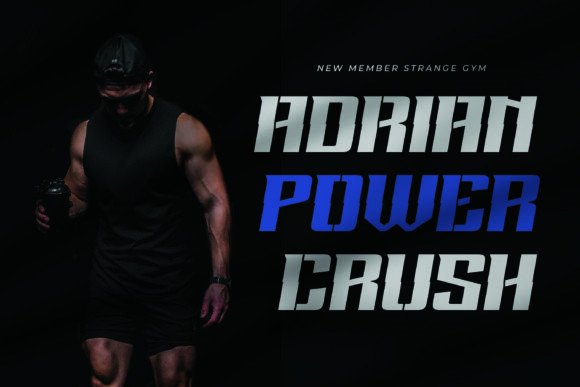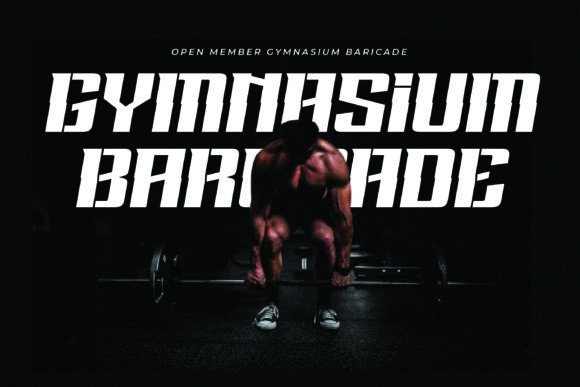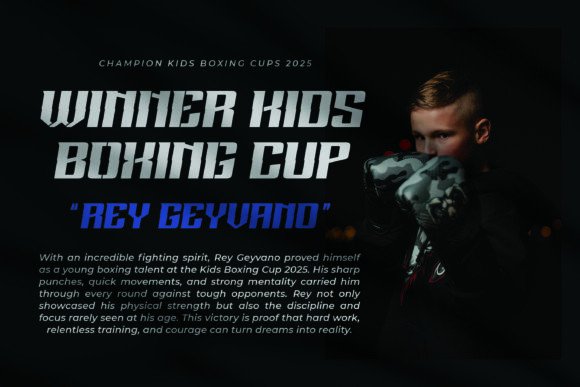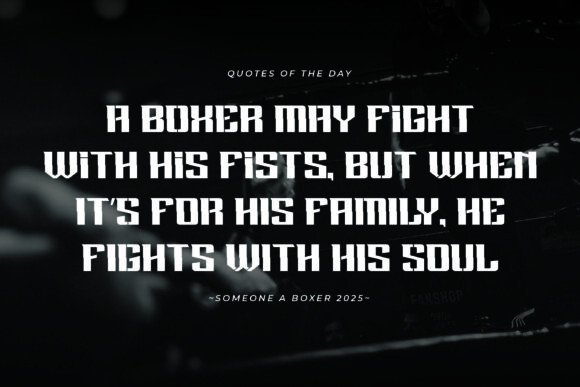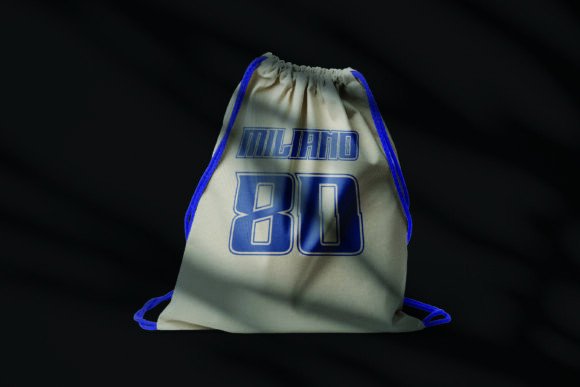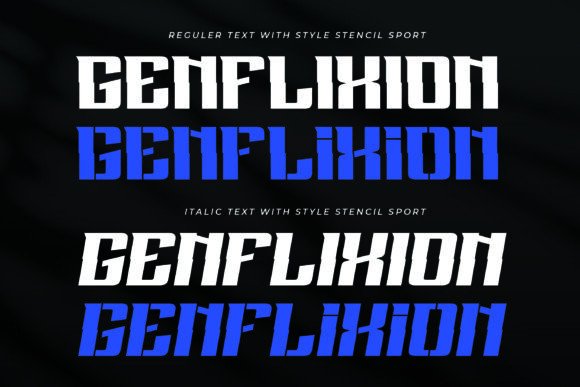
Unleash the Power of Chasers Font: Elevate Your Designs with Strength and Speed
In the world of typography, fonts play a crucial role in conveying the message and tone of a design. For designers and crafters looking to inject energy and dynamism into their work, Chasers Font is an excellent choice. This modern sport gym typeface is built for strength and speed, making it perfect for projects that require a bold and athletic aesthetic.
The Design Behind Chasers Font
Chasers Font boasts a bold, angular cut and a dynamic structure that exudes the intensity of athletic performance. Its unique design elements are carefully crafted to bring a sense of movement and power to your designs. The font’s bold lines and sharp edges create a rugged, high-energy feel that’s perfect for gym branding, sports apparel, posters, and powerful headlines.
Perfect for High-Energy Designs
Chasers Font is specifically designed to thrive in high-energy environments. Its robust and athletic appearance makes it an ideal choice for:
- Gym branding: Create a strong and powerful identity for your gym or fitness studio with Chasers Font.
- Sports apparel: Add a bold and dynamic touch to your sports apparel designs with this high-energy font.
- Posters: Grab attention and convey intensity with Chasers Font, perfect for posters promoting sports events, fitness classes, or athletic competitions.
- Headlines: Make a statement with powerful headlines that demand attention, using Chasers Font’s bold and angular design.
Key Features of Chasers Font
So, what sets Chasers Font apart from other typefaces? Here are some key features that make it an excellent choice for designers and crafters:
- Bold and angular design: Chasers Font’s unique design elements create a strong and dynamic visual impact.
- High-energy aesthetic: Perfect for designs that require a sense of movement and power.
- Versatile: Suitable for a wide range of applications, from gym branding to sports apparel and posters.
- Easily readable: Despite its bold design, Chasers Font remains easily readable, even at smaller sizes.
Chasers Font is a powerful and dynamic typeface that’s perfect for designers and crafters looking to inject energy and strength into their work. With its bold, angular design and high-energy aesthetic, this font is sure to elevate your designs and make a lasting impression. Whether you’re working on gym branding, sports apparel, posters, or powerful headlines, Chasers Font is an excellent choice. So why wait? Unleash the power of Chasers Font and take your designs to the next level!